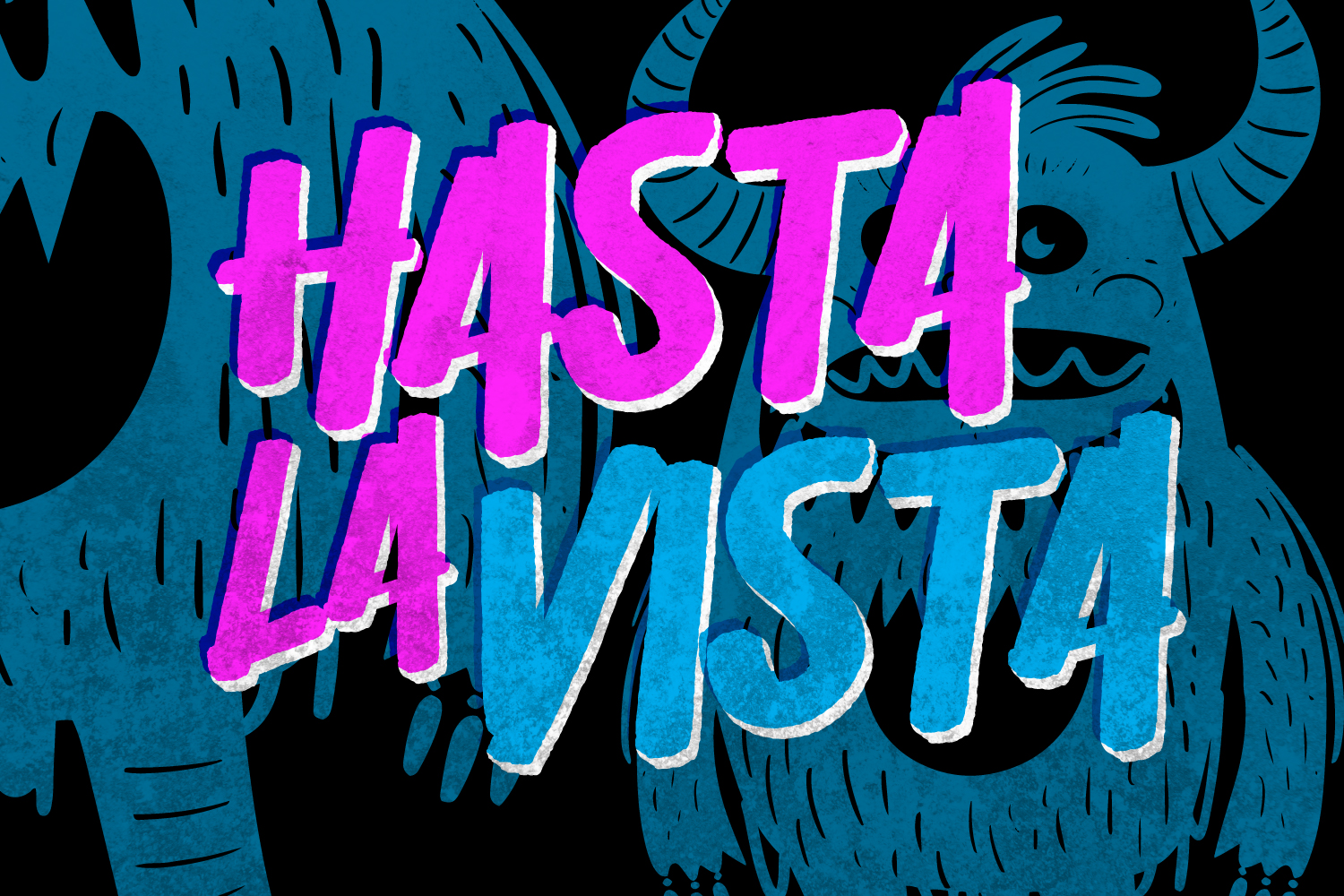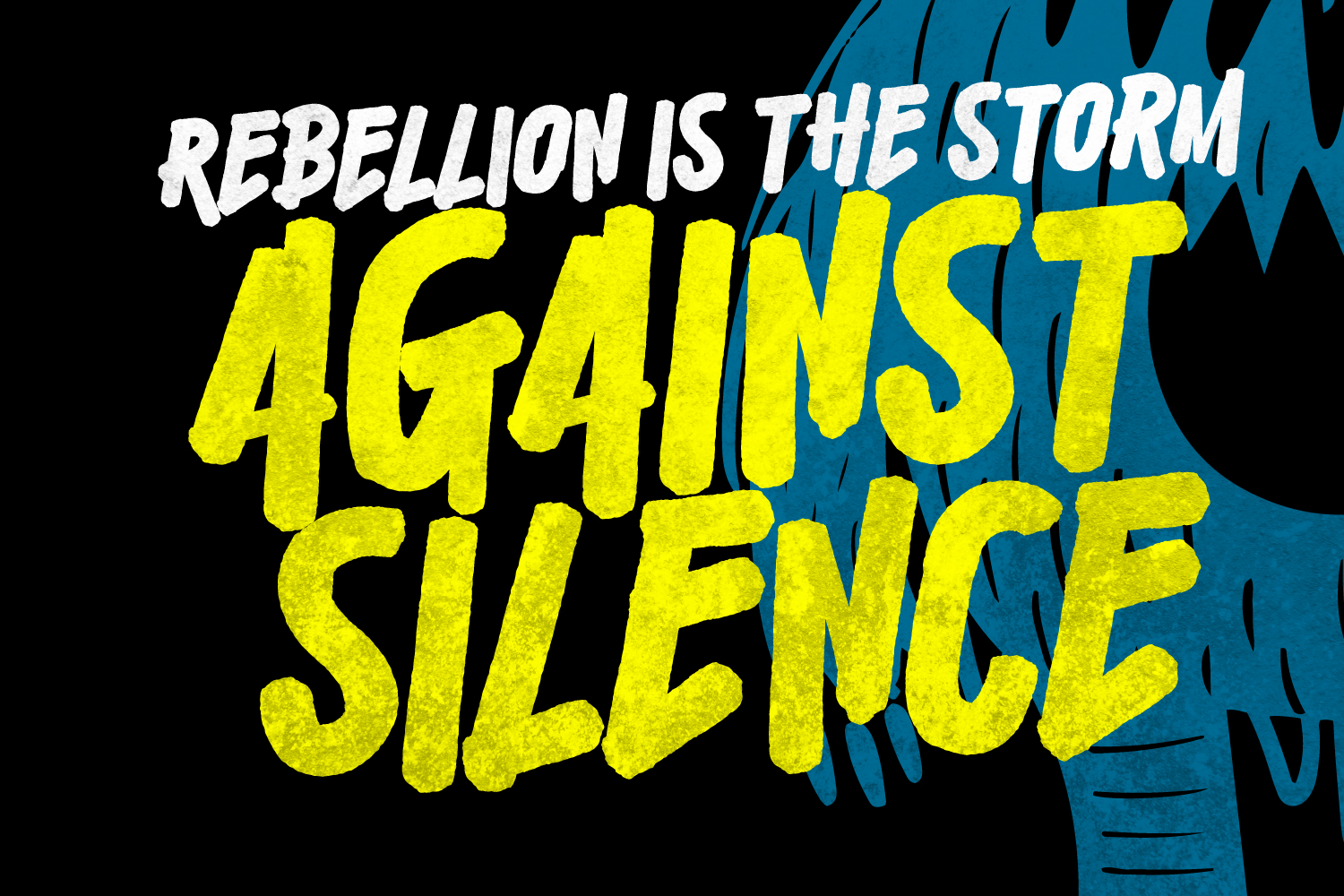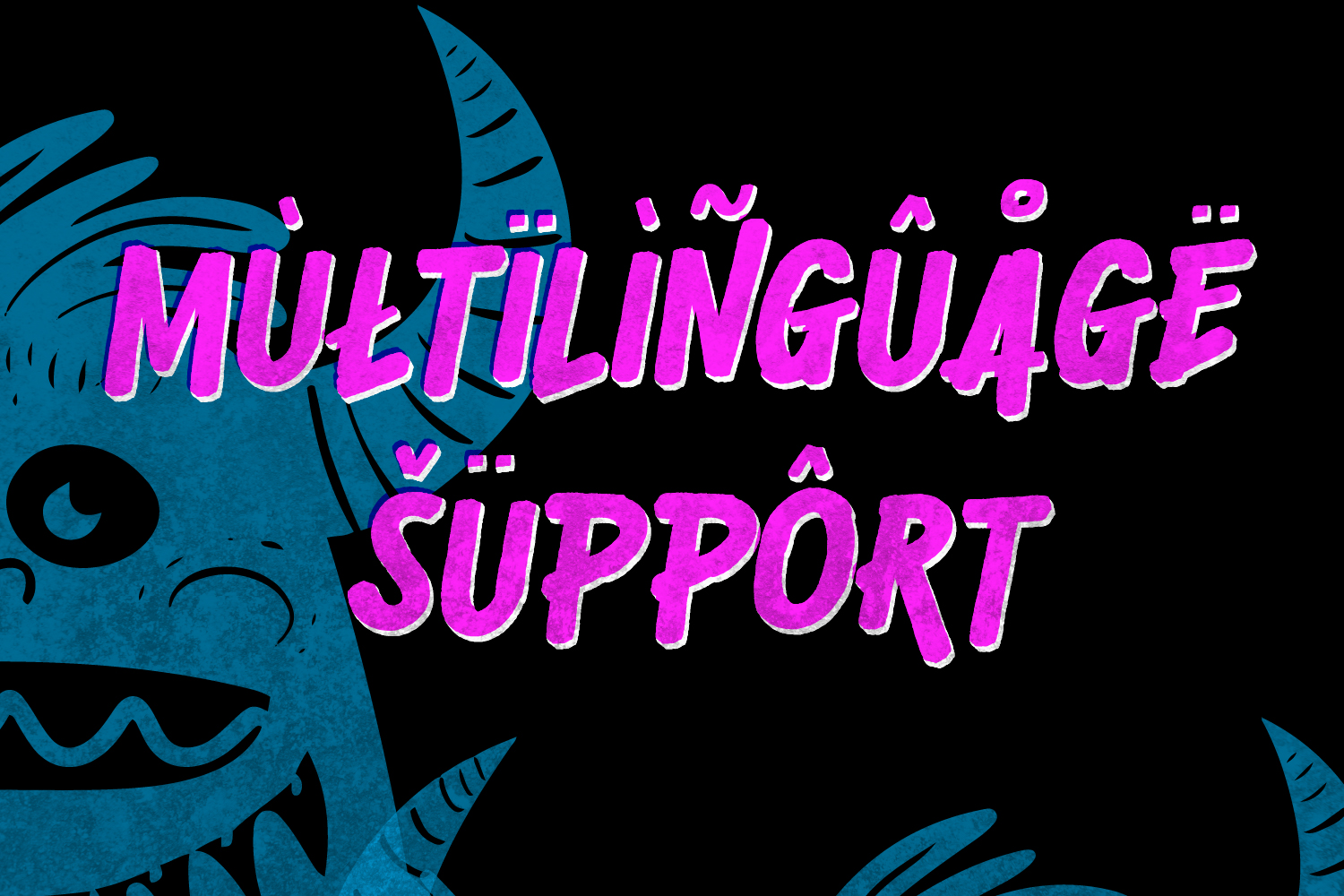
Alus – Bad Display Font
Alus is a playful sans display font with a soft and natural vibe. Its clean yet friendly shapes make it perfect for projects that need a touch of simplicity without feeling too serious.
Designed to bring a lighthearted character, Alus works beautifully for headlines, posters, branding, and social media graphics. It’s the kind of font that feels approachable and fun, while still keeping your design stylish and modern.
A fresh choice when you want your words to look easygoing and full of personality.